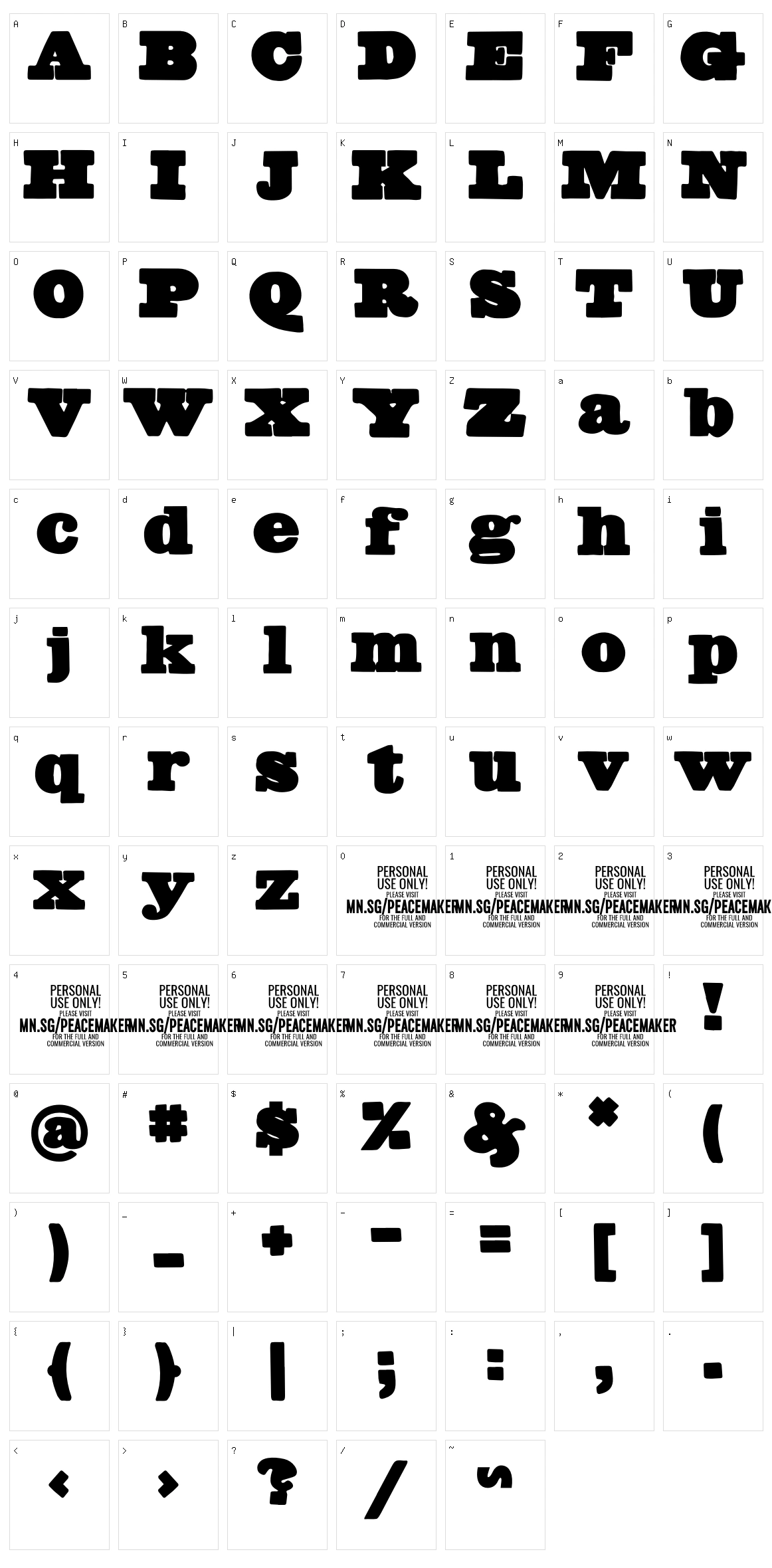
Peacemaker is a bold and rugged slab serif font that exudes the spirit of the American West. With a handprinted look that is reminiscent of old newspaper headlines from the 1890s, Peacemaker is perfect for creating a vintage feel in your designs. Its bold and confident appearance makes it ideal for attention-grabbing headlines and titles, while its versatile styles allow for a variety of creative possibilities. Whether you're designing a cowboy-themed poster or a rustic logotype, Peacemaker is sure to make a bold statement.
The Peacemaker family includes eight different styles: Bold, Bold Italic, Highlight, Highlight Italic, Outline, Outline Italic, and Regular.
The Bold and Bold Italic styles are perfect for creating attention-grabbing headlines and titles, while the Highlight and Highlight Italic styles add a touch of vintage flair to your designs. The Italic and Outline styles are great for adding emphasis and creating contrast within your text, and the Regular style provides a solid base for your typography.